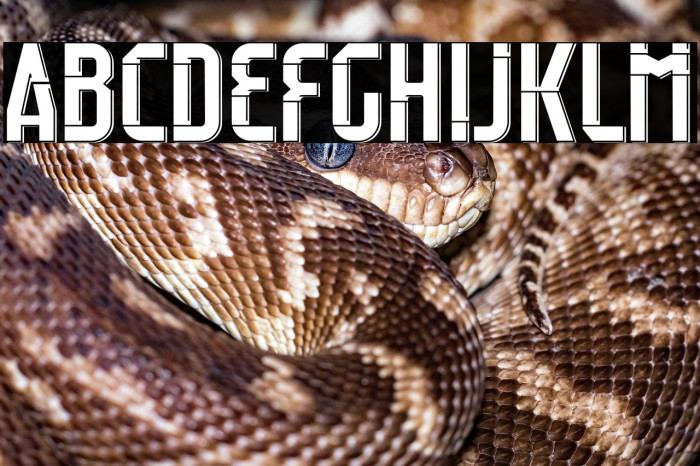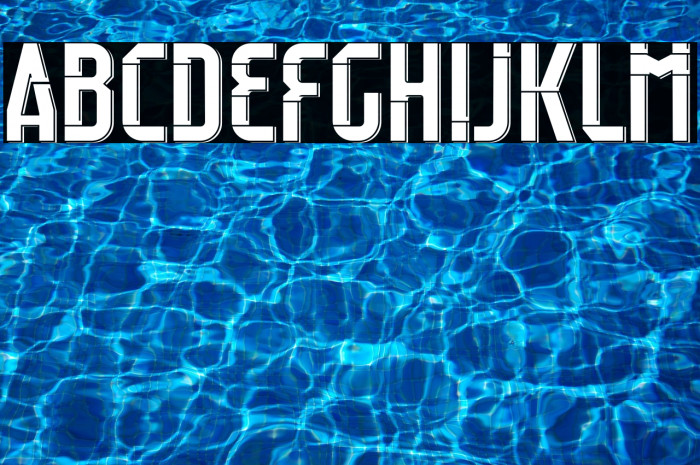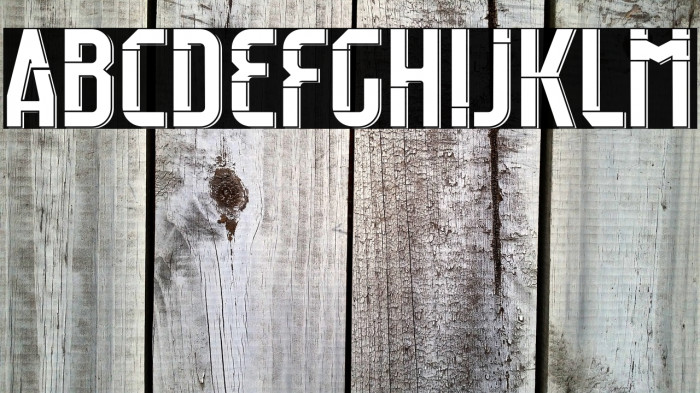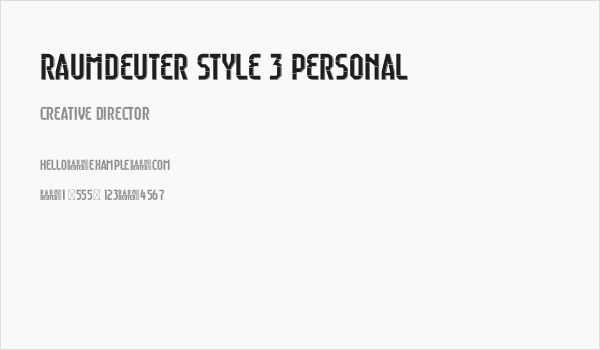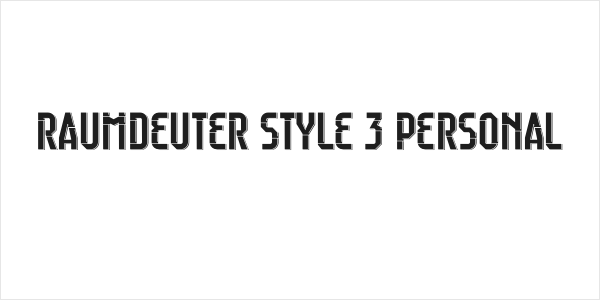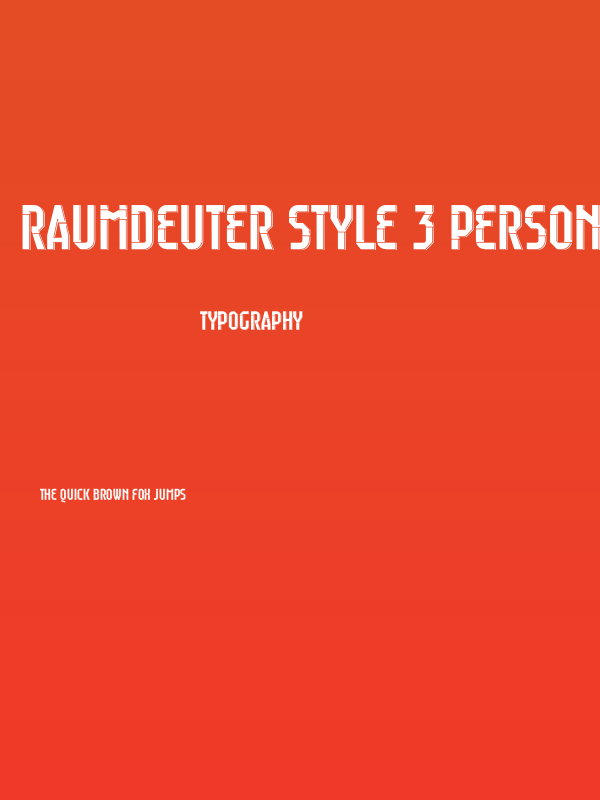
Raumdeuter Style 3 Personal Font
Raumdeuter Style 3 Personal Description
This font features a bold, geometric design with a strong emphasis on angular shapes and sharp edges. The characters are constructed with a combination of thick and thin lines, creating a high contrast that enhances readability while maintaining a modern, industrial aesthetic. The uppercase letters are particularly striking, with a blocky appearance that commands attention. The numbers and special characters follow the same design principles, ensuring consistency across all elements. This font is ideal for projects that require a bold statement, such as branding, posters, and signage.